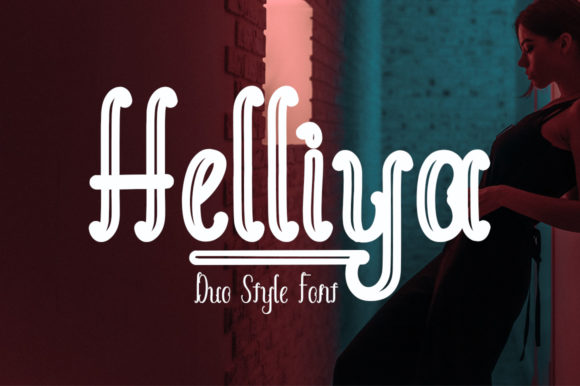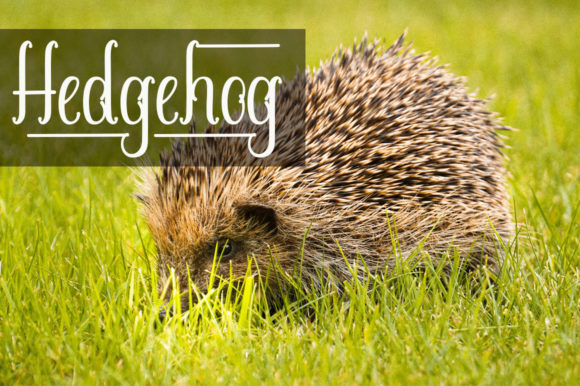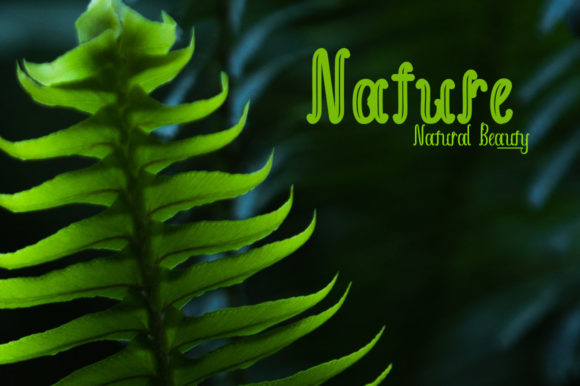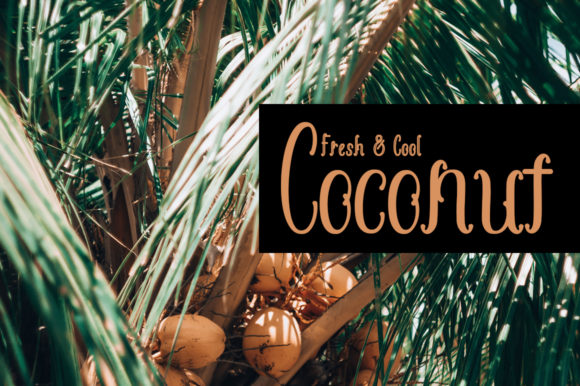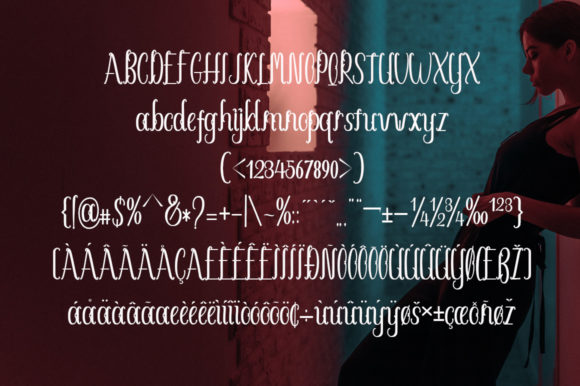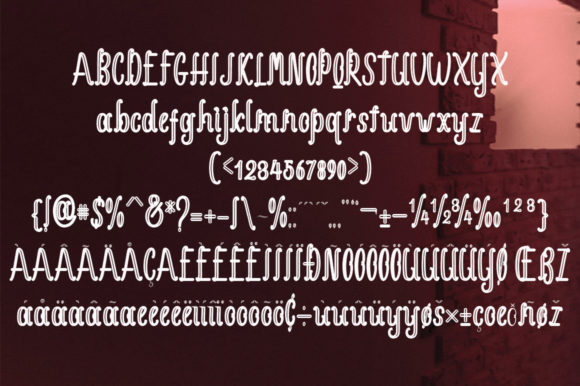
Helliya Font: Elevate Your Designs with Elegance and Versatility
Helliya is an elegant and unique display font that has been making waves in the design community. With its incredibly versatile style, this font is perfect for designers and crafters looking to add a touch of sophistication to their projects. In this article, we’ll dive into the world of Helliya Font, exploring its features, benefits, and uses, as well as provide tips on how to make the most of this stunning font.
The Story Behind Helliya Font
Helliya Font is a carefully crafted typeface designed to make a statement. Its elegant and refined aesthetic makes it perfect for a wide range of design applications, from luxury branding and advertising to packaging and digital media. The font’s unique style is characterized by its flowing lines, intricate details, and beautiful curves, making it a standout in any design.
Key Features of Helliya Font
- Elegant and Unique: Helliya Font boasts an elegant and unique style that sets it apart from other display fonts.
- Versatile: This font is incredibly versatile, making it suitable for a wide range of design applications.
- High-Quality: Helliya Font is designed with high-quality craftsmanship, ensuring that it looks stunning in any design.
- Easy to Read: Despite its ornate style, Helliya Font is easy to read, making it perfect for use in body text and headlines.
Benefits of Using Helliya Font
So, why should you choose Helliya Font for your next design project? Here are just a few benefits of using this amazing font:
- Adds Elegance: Helliya Font adds a touch of elegance and sophistication to any design, making it perfect for luxury brands and high-end products.
- Standout Designs: With its unique style, Helliya Font helps you create standout designs that grab attention and leave a lasting impression.
- Time-Saving: Helliya Font is easy to use and works seamlessly across different design applications, saving you time and effort.
- Customizable: Helliya Font can be customized to fit your brand’s style, making it a versatile addition to your design toolkit.
Uses of Helliya Font
Helliya Font is an incredibly versatile font that can be used in a wide range of design applications, including:
- Logo Design: Use Helliya Font to create stunning logos that make a statement.
- Branding: Add a touch of elegance to your brand’s identity with Helliya Font.
- Advertising: Use Helliya Font in your advertising materials to grab attention and create a lasting impression.
- Packaging: Elevate your packaging designs with the sophisticated style of Helliya Font.
- Digital Media: Use Helliya Font in your digital media, such as social media graphics, website headers, and more.
Tips for Using Helliya Font
To make the most of Helliya Font, here are a few tips to keep in mind:
- Experiment with Sizes: Helliya Font looks stunning in large sizes, but it can also be used in smaller sizes to add a touch of elegance to your design.
- Pair with Other Fonts: Pair Helliya Font with other fonts to create a unique and visually appealing design.
- Use in Headlines: Use Helliya Font in headlines to grab attention and add a touch of sophistication to your design.
- Customize: Don’t be afraid to customize Helliya Font to fit your brand’s style and aesthetic.
| Font Name | Helliya Font |
| Author | Polem |
In conclusion, Helliya Font is an elegant and unique display font that is perfect for designers and crafters looking to add a touch of sophistication to their projects. With its incredibly versatile style, high-quality craftsmanship, and ease of use, Helliya Font is a must-have in any design toolkit. Whether you’re creating logos, branding materials, advertising, packaging, or digital media, Helliya Font is sure to elevate your designs and make them stand out.
So, fall in love with Helliya Font and use it to create spectacular designs that leave a lasting impression!